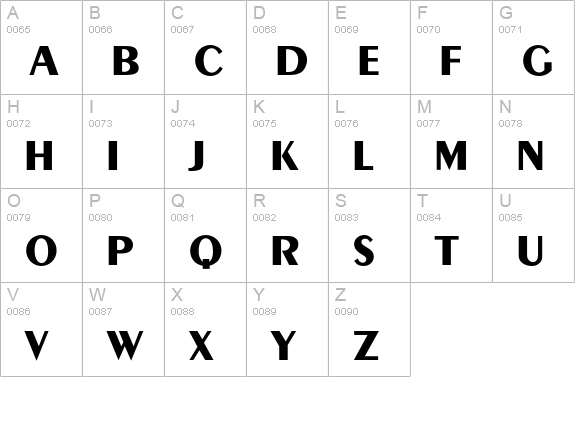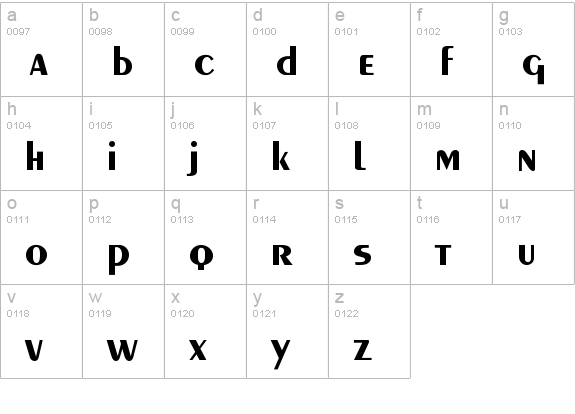
Aquavit Font Details
Aquavit font is a stunning and elegant typeface that exudes sophistication and modernity. With its clean lines and stylish curves, Aquavit is perfect for adding a touch of class to any design project. Whether you are creating a logo, poster, or website, this versatile font is sure to make a lasting impression. What's even better is that Aquavit font is completely free to download at FontsMarket.com. You can easily access this beautiful font and use it in your projects without any cost. Don't miss out on the opportunity to enhance your designs with the timeless beauty of Aquavit font. Download it today and elevate your creations to the next level.